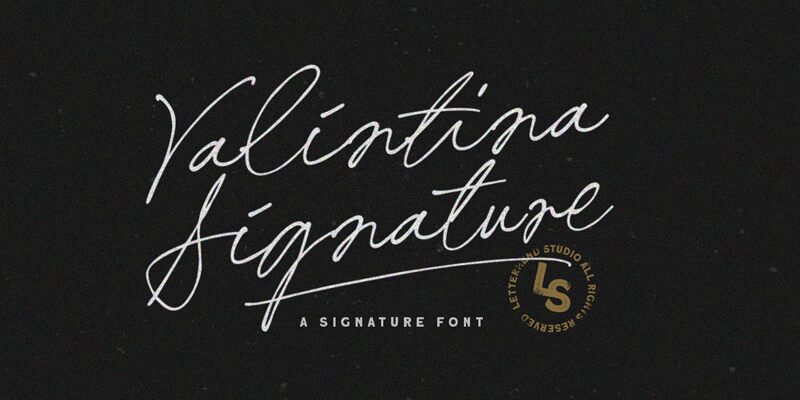
Valintina-Regular
Valintina, a creation of Letterhend Studio, exudes a personal touch with its handwritten, signature style that brings an elegant flair to any design. The font's light strokes and fluid continuity give it a delicate and refined appearance. Its flowing lines suggest sophistication and grace, reminiscent of classic calligraphy, yet with the freshness of contemporary design.
Ideal for branding projects that require an intimate and artisanal feel, Valintina is also perfectly suited for wedding invitations, boutique packaging, or upscale advertising campaigns. Its singular charm will undoubtedly elevate the aesthetic of any project seeking to convey exclusivity and style.